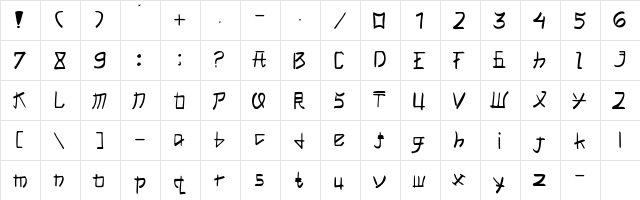
TAKOYAKI Regular
| Designer | Oziel89 Studio |
Design Context for TAKOYAKI Typeface
TAKOYAKI is a composed and adaptable typeface that performs quietly and consistently across a wide range of design contexts.